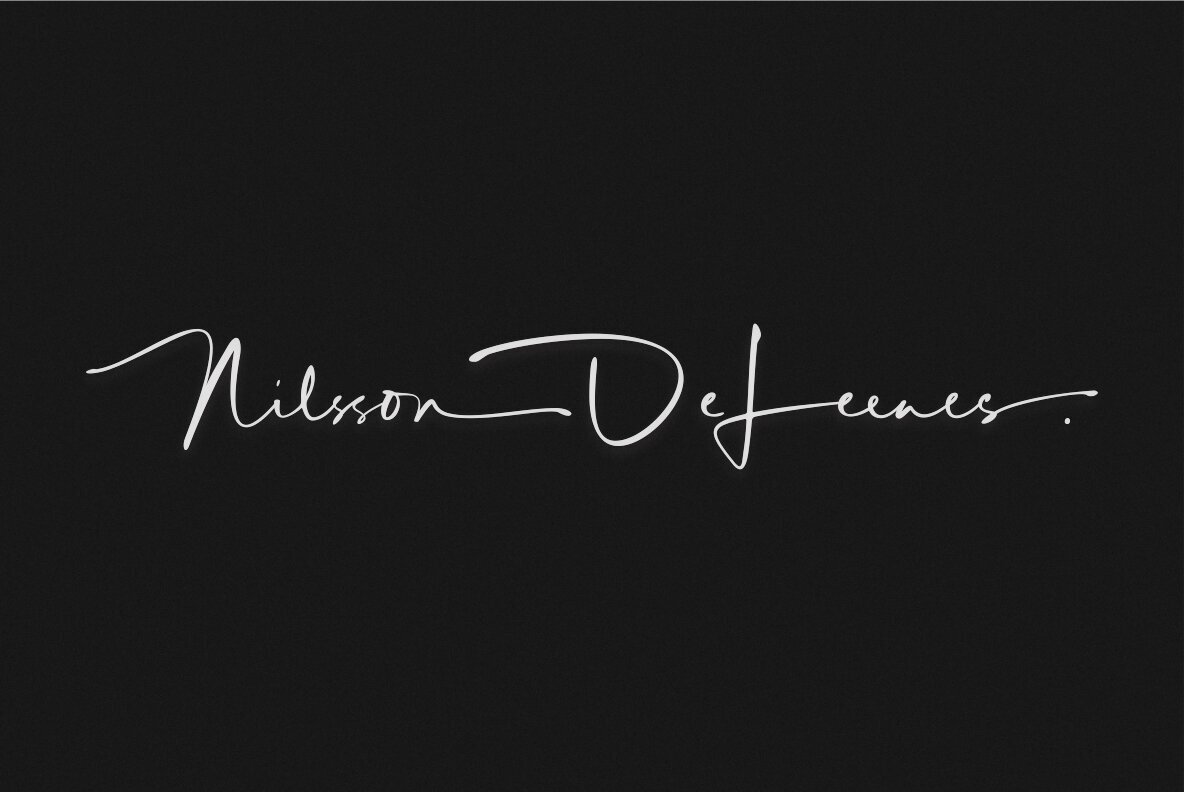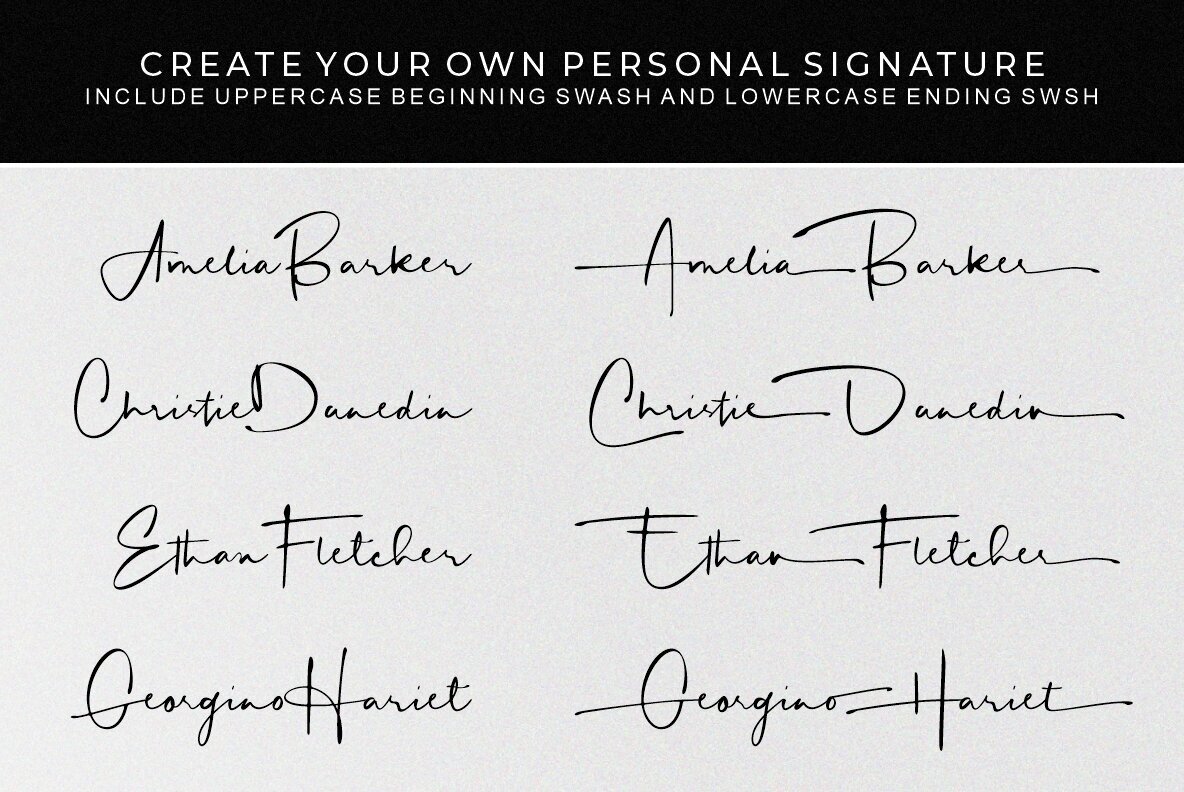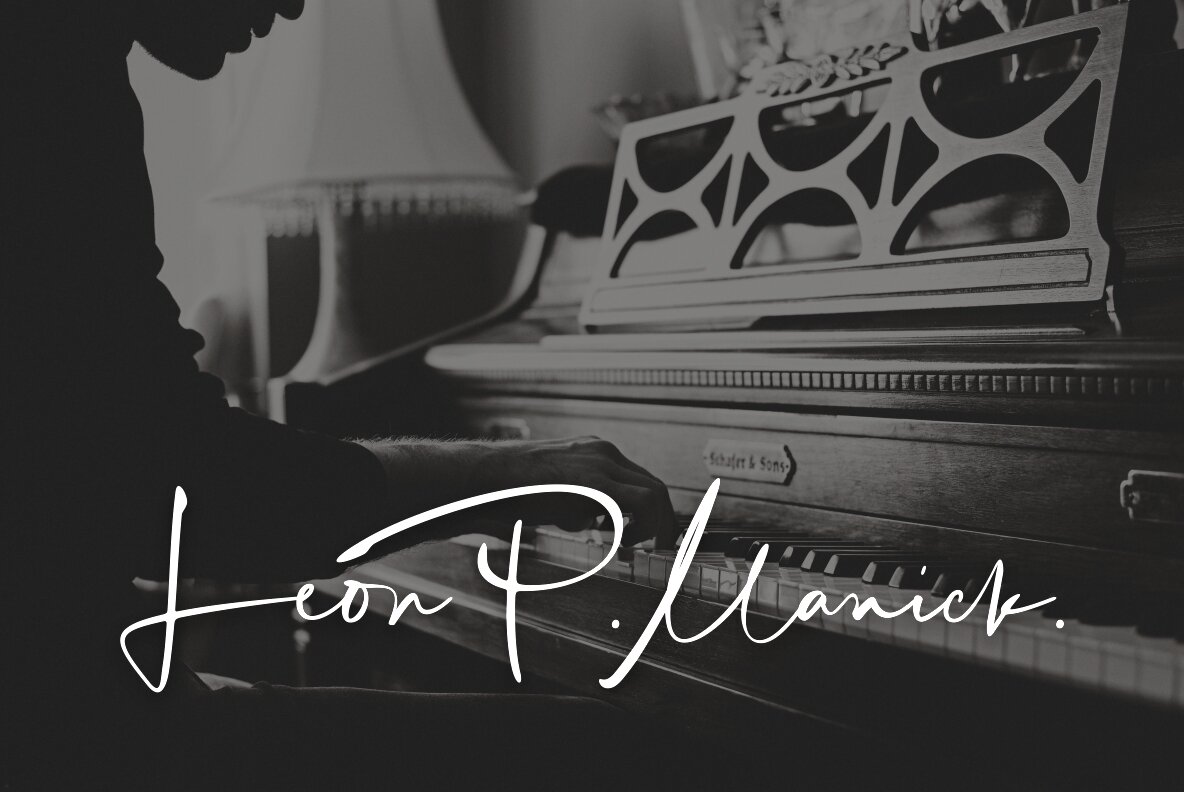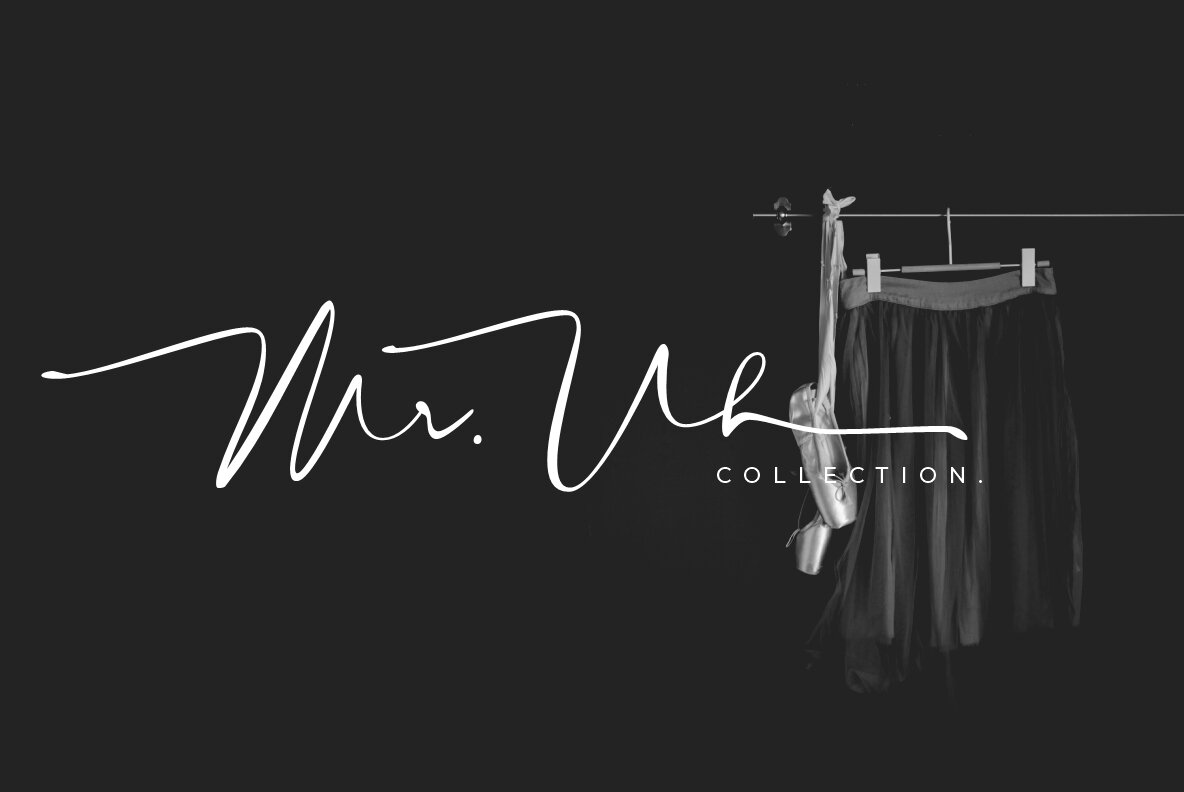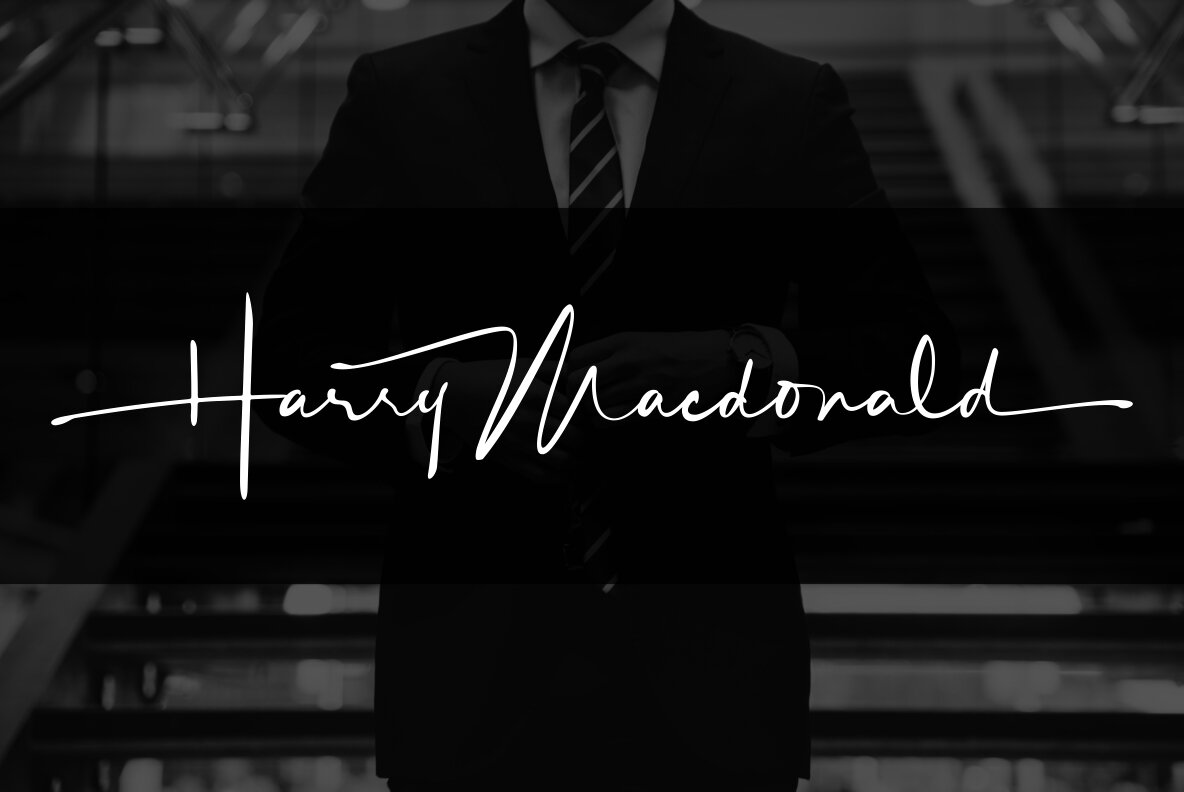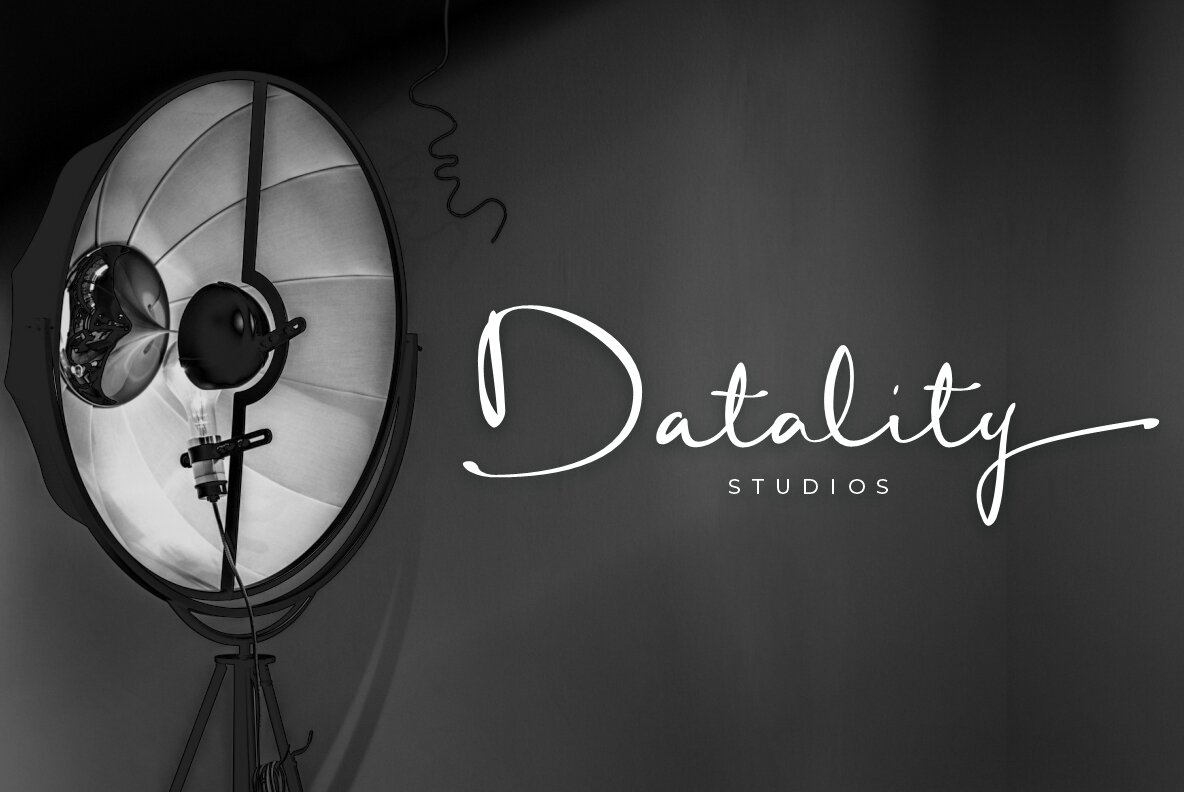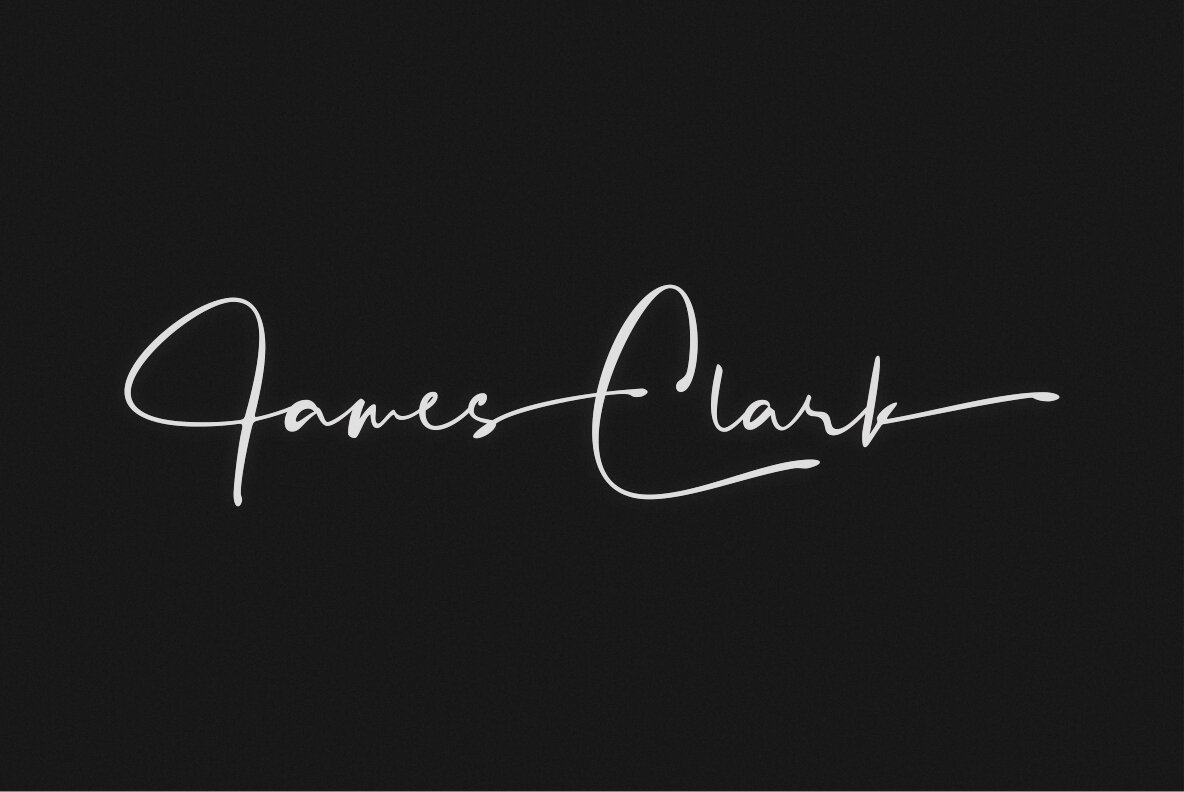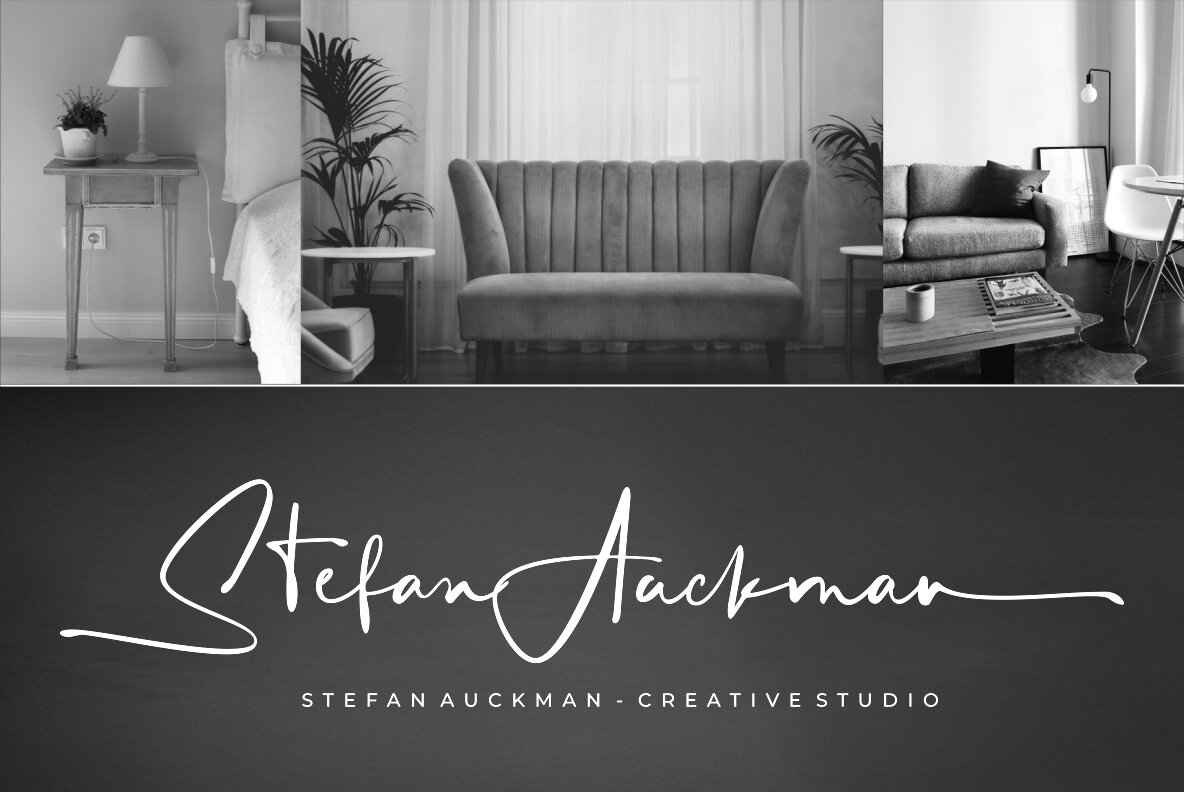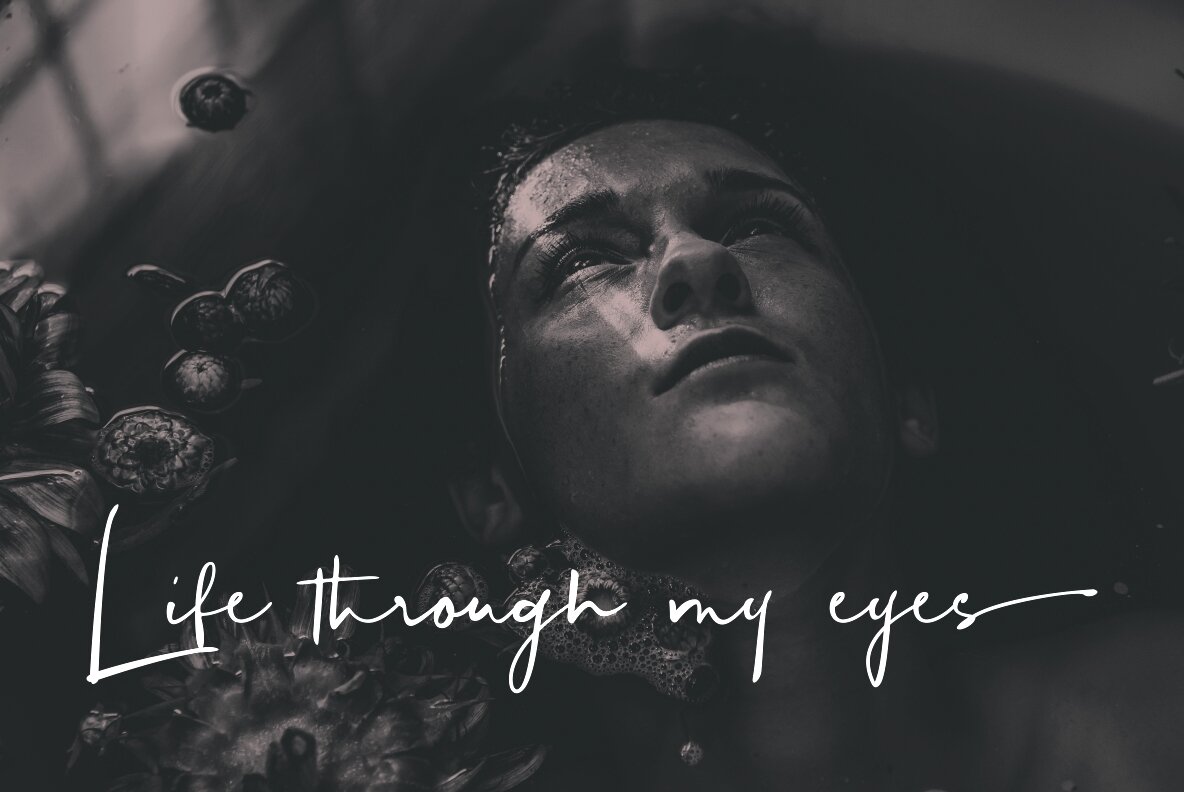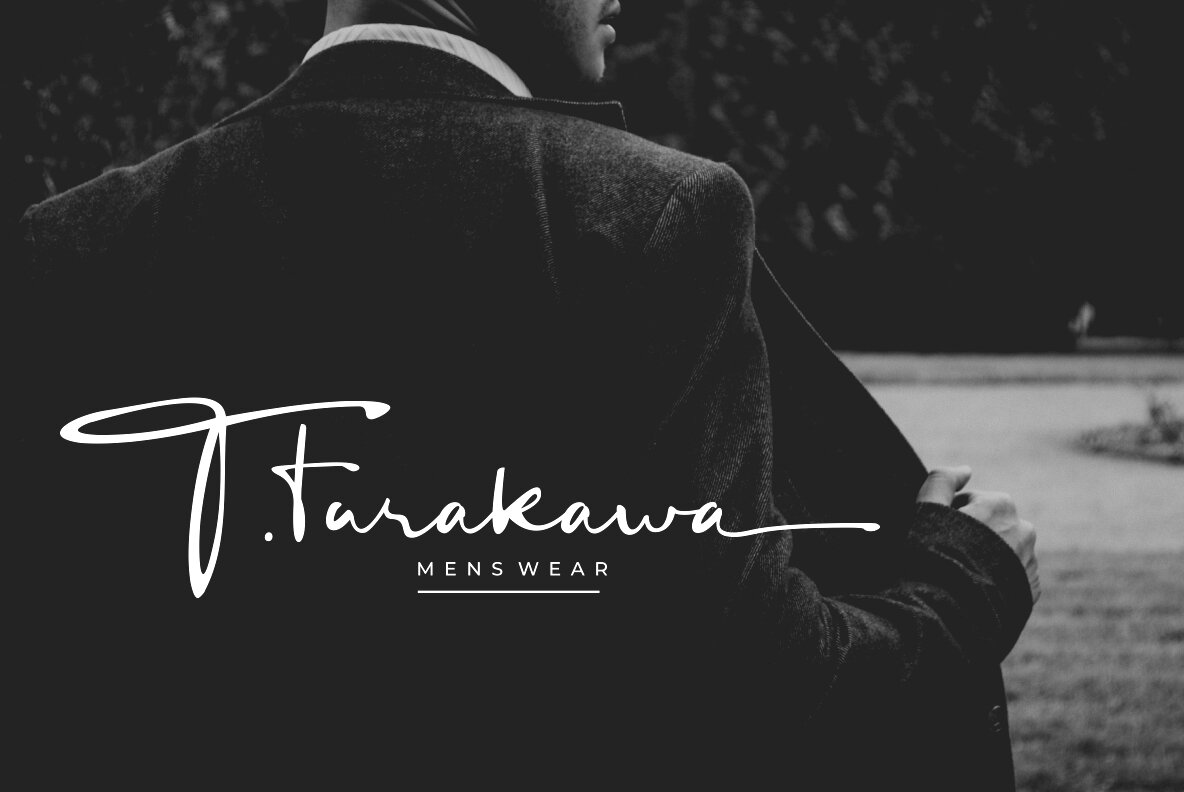
Mortdecai Font
Mortdecai Script
Mortdecai is a luxurious signature font that’s perfect for any branding, logo design, and much more. Along with its OpenType features, the unique structure of this typeface makes it highly usable, easy to work with, and elegant in all sizes. The result is really easy to use, professional and elegant. We’re sure you will fall in love with it! All the features of this typeface were specially made and interpreted to offer a better and more modern experience while working on your designs. Thanks to its specially designed structure it’s highly usable, easy to work with, and extremely elegant on all sizes – from small header titles to huge logo designs. This is a luxury signature font, especially for you! Mortdecai features: - A full set of upper & lowercase characters - Numbers & punctuation - Ligatures - Uppercase beginning swashes - Lowercase ending swashes - Stylistic alternatives - Accented characters - PUA Encoded Characters – Fully accessible without additional design software. Feel free to give me a message if you have a problem or question. Thank you so much for taking the time to look at one of our products.